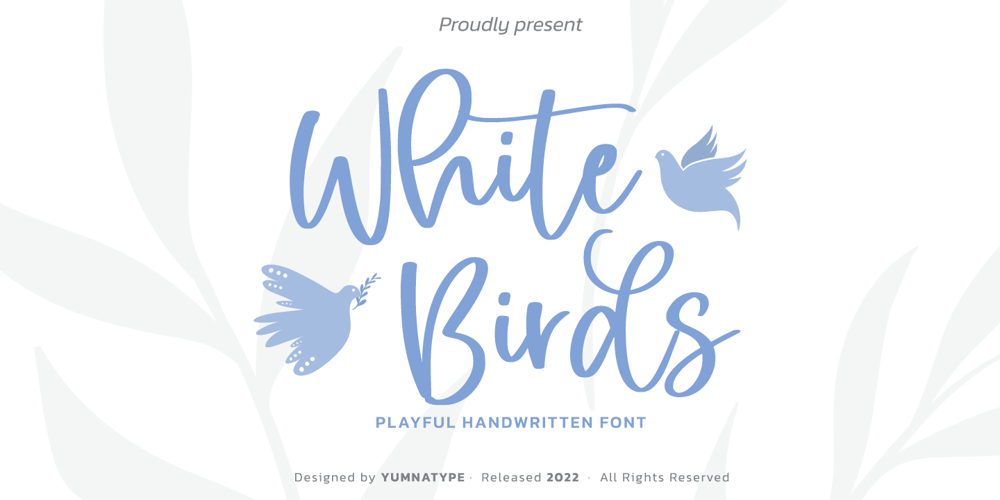
White Birds Font Family was designed by Donis Miftahudin and published by Yumna Type. White Birds contains 2 styles and family package options. A handmade font is a creative designing way to catch attention. That is what this pretty font does. White Birds is a script font in handmade cursive styles with decorative and the dancing basic line characteristics showing the fun, elegant, modern nuances. To be visually attractive, its letter heights are made uneven for a purpose. In addition, White Birds gives you a special bonus called the clipart. Use this font for any text sizes due to its legibility and make use of the available interesting features to beautify your designs.Features: Ligatures Multilingual Supports PUA Encoded Numerals and Punctuations White Birds fits for various design projects, such as posters, banners, logos, magazine covers, quotes, headings, printed products, invitations, name cards, merchandise, social media, etc. Find out more ways to use this font by taking a look at the font preview.Thanks for purchasing our fonts. Hopefully, you have a great experience using our font. Feel free to contact us for further information when you have a problem using the font. Thank you. Happy designing.